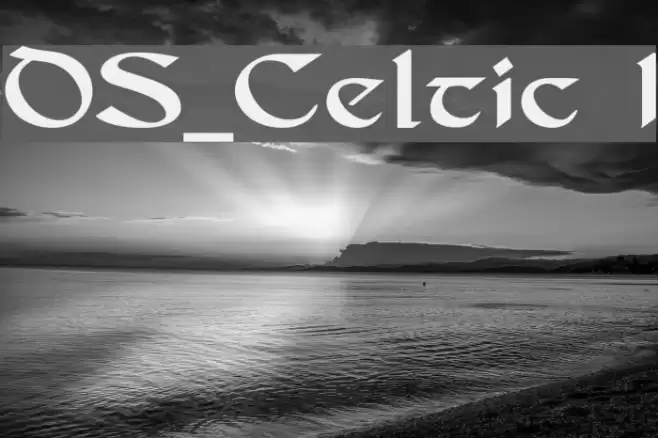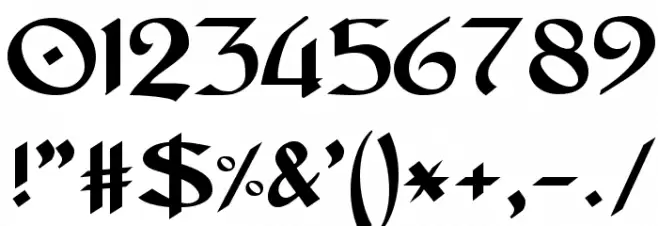
DS_Celtic 1 Font
DS_Celtic 1 Description
This font features a distinctively medieval and Celtic-inspired design, characterized by its angular and sharp serifs. The letterforms exhibit a unique blend of traditional calligraphic elements with a modern twist, creating an ornate and decorative appearance. The uppercase letters are bold and commanding, while the lowercase letters maintain a consistent style with slightly less emphasis. The numerals are equally stylized, ensuring a cohesive look across all characters. Special characters and punctuation marks are designed to match the overall aesthetic, making this font suitable for thematic and historical projects.
A Celtic-inspired decorative font with sharp, angular serifs and a medieval flair from Uncategorized fonts.
- Proposed Projects: Ideal for use in fantasy-themed designs, historical event posters, book covers, and any project requiring a medieval or Celtic aesthetic.